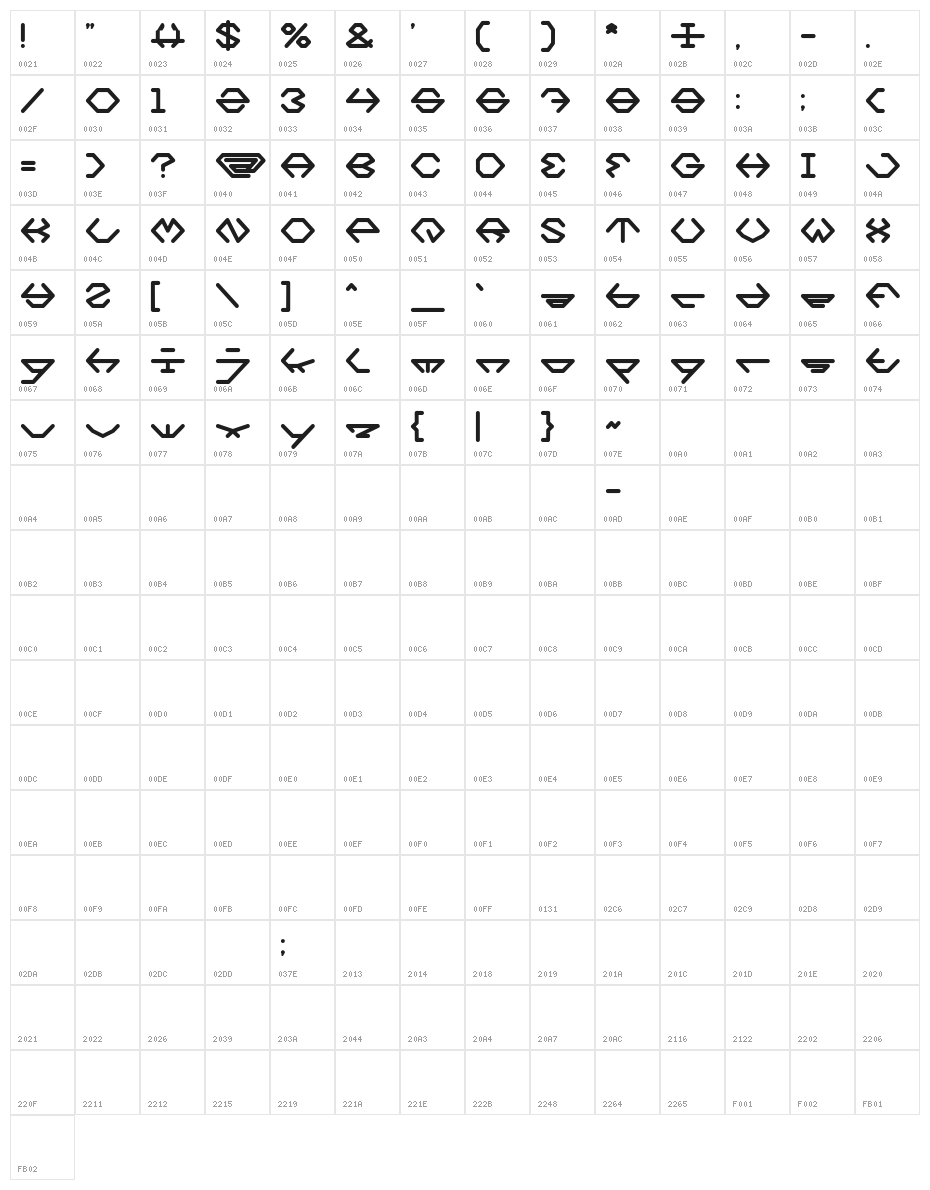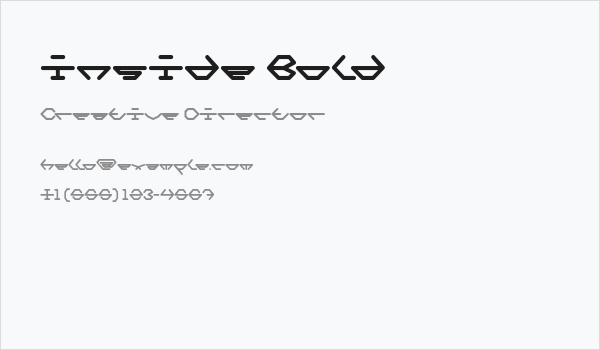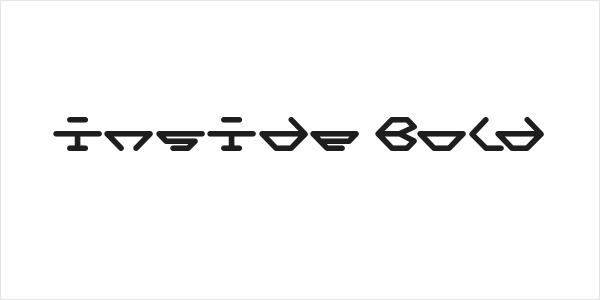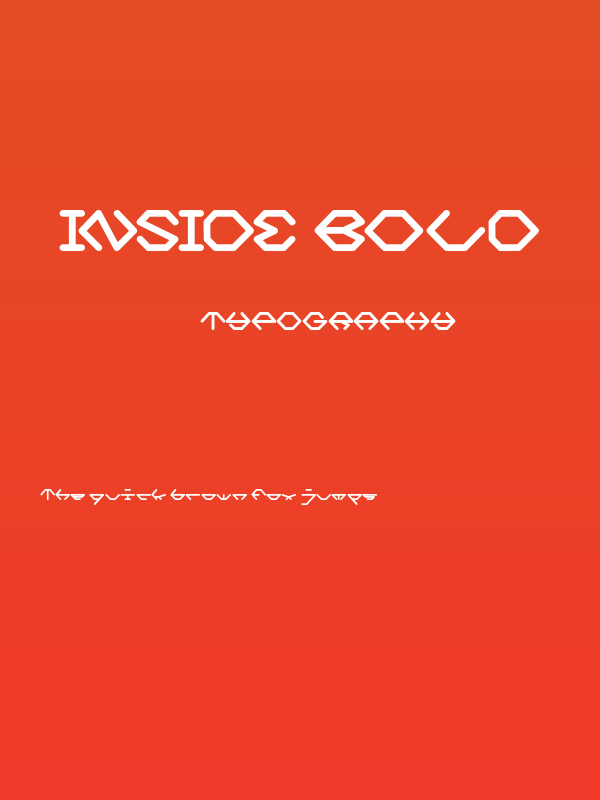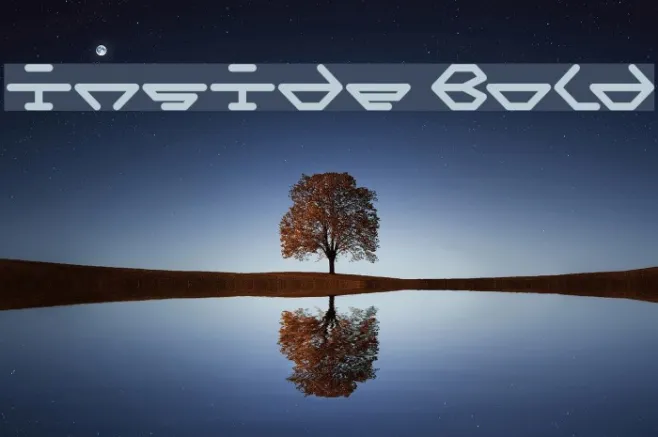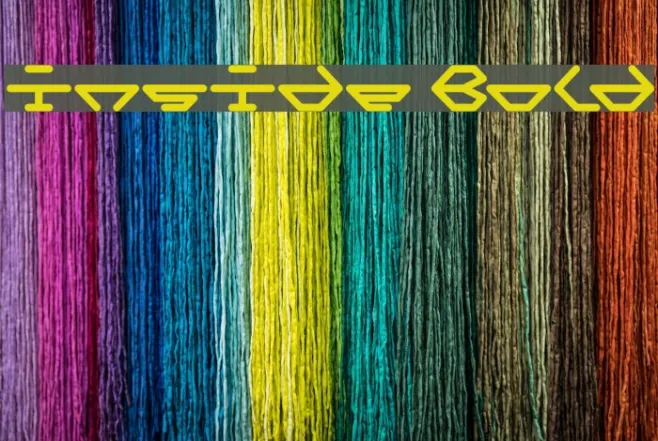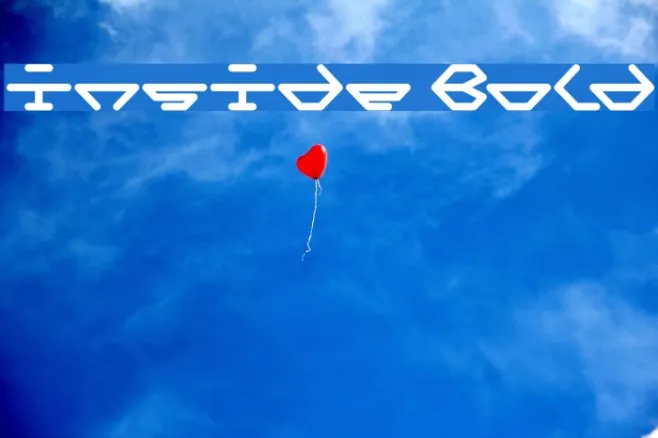
inside Bold Font
inside Bold Description
This font features a unique, geometric design with angular and interconnected lines, creating a futuristic and tech-inspired look. The characters are bold and distinct, with a consistent thickness throughout, giving them a strong visual presence. The uppercase and lowercase letters maintain a uniform style, while the numbers and special characters complement the overall aesthetic. The font's structure is reminiscent of digital or sci-fi themes, making it suitable for projects that require a modern and edgy appearance.
| Proposed Projects | Ideal for technology branding, sci-fi movie posters, video game titles, and digital art projects. |